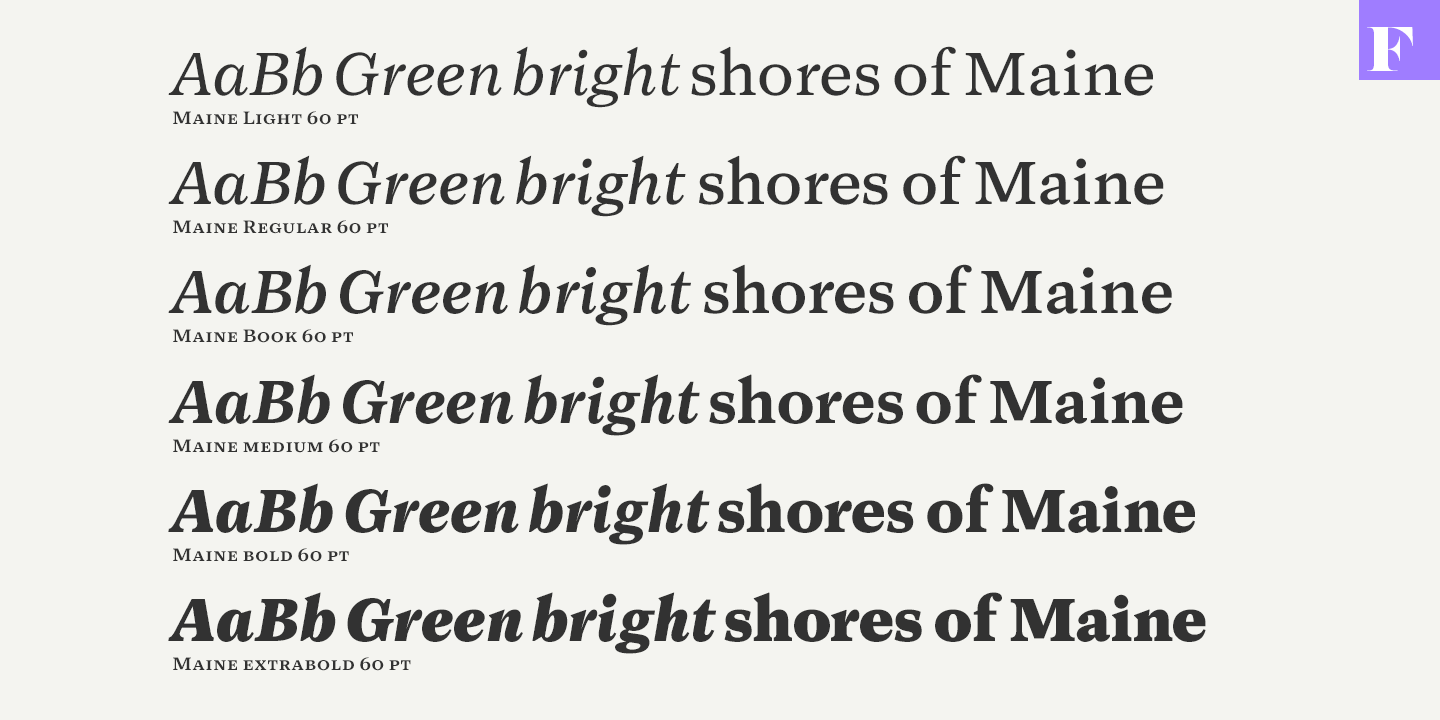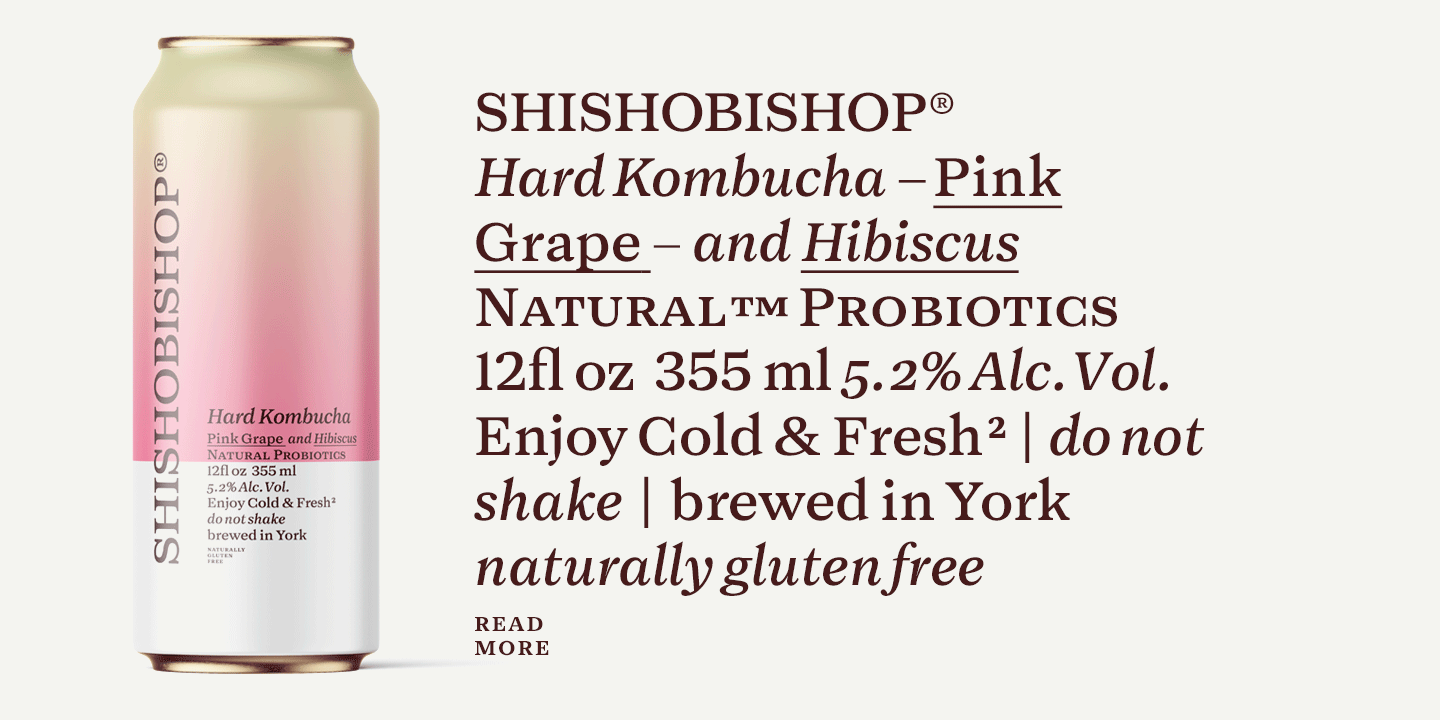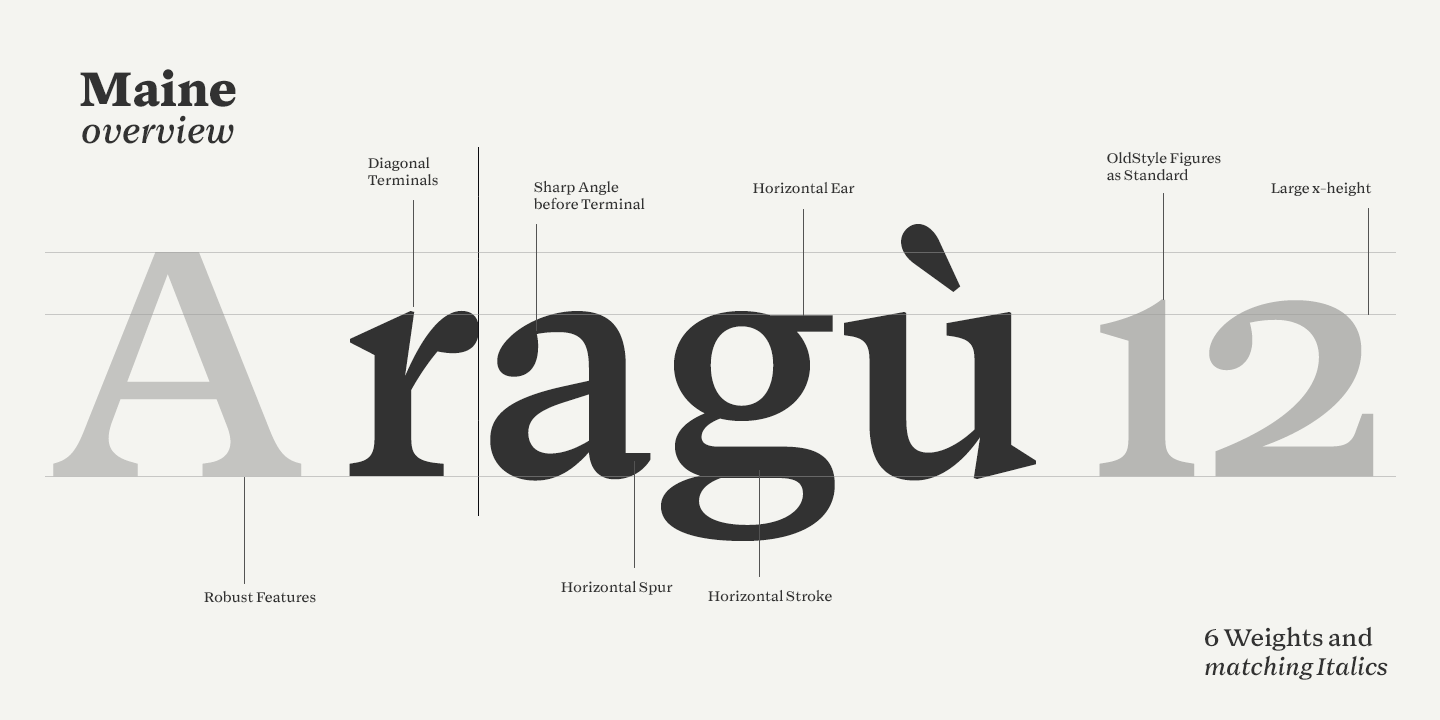
About Maine
Fringed by ocean\’s foamy surges, Belted in by woods of gloom, Maine is a modernized book antiqua consisting of six styles and matching italics. Maine\’s cuts are from Light to Extrabold, of which Regular and Slightly Bolder Book are especially suitable…